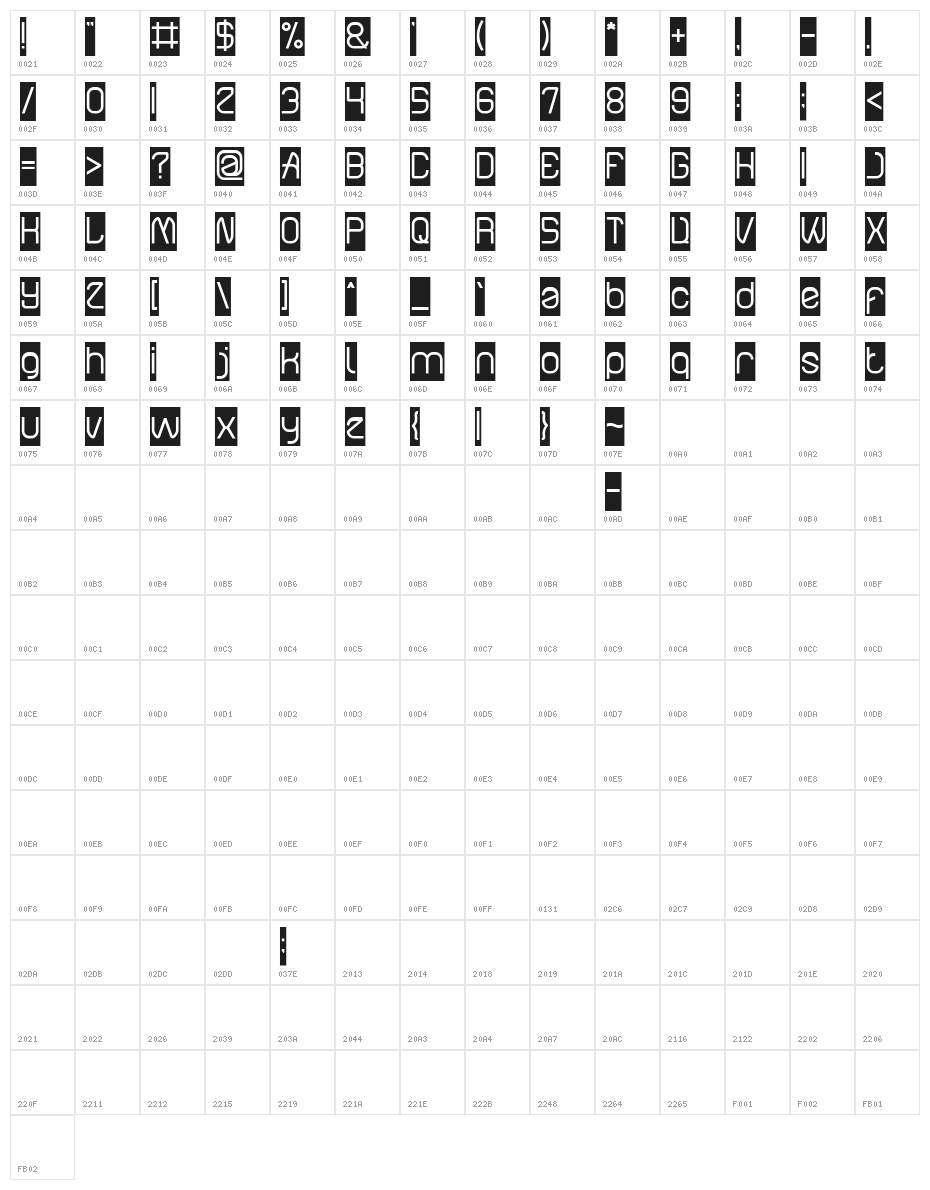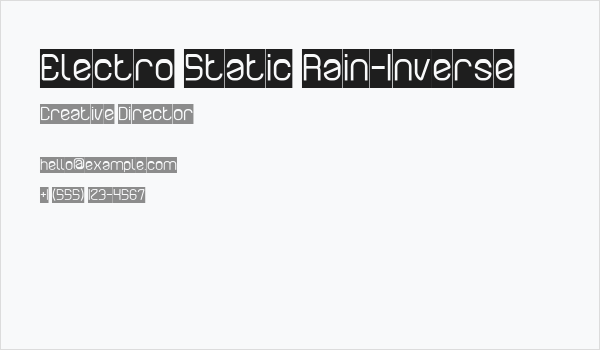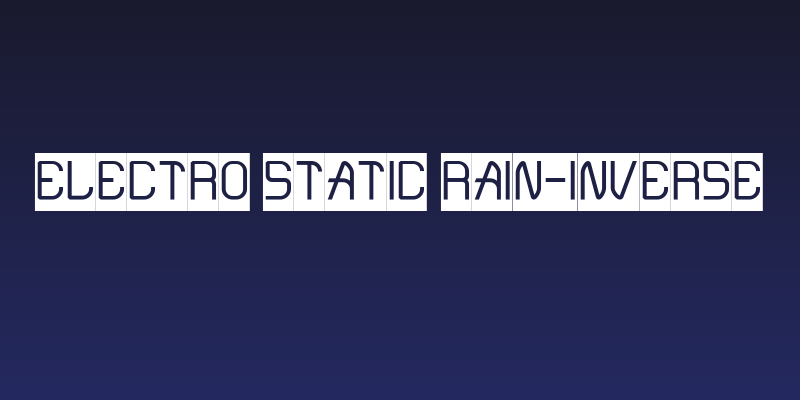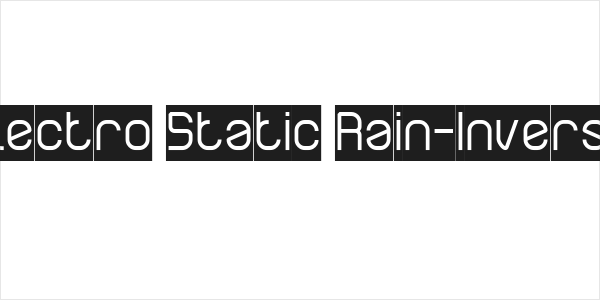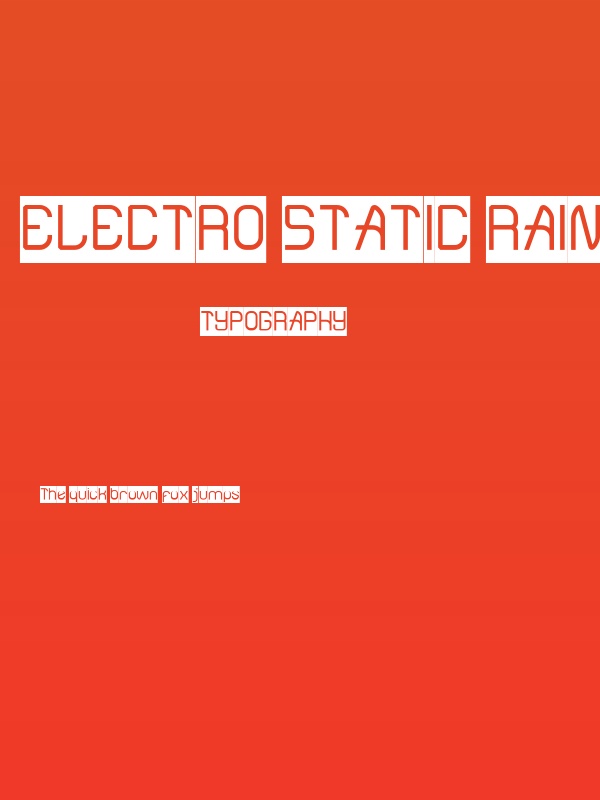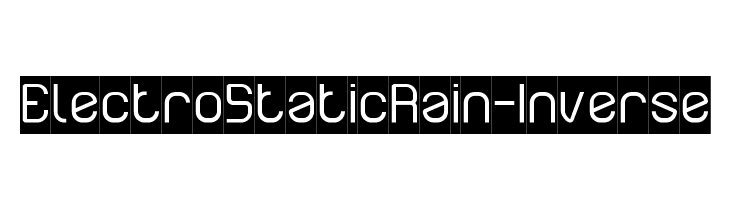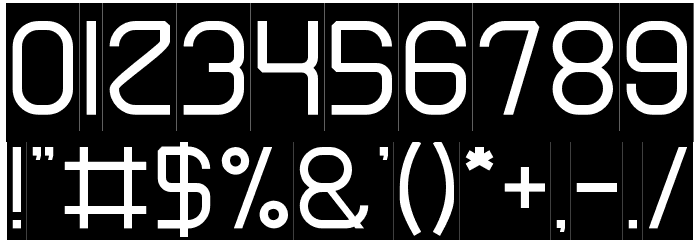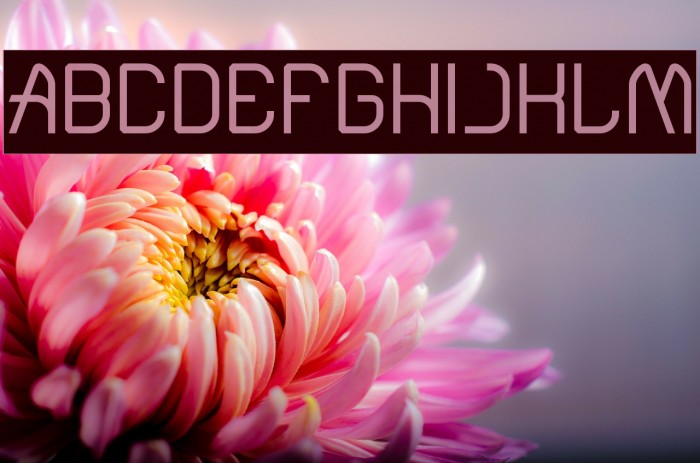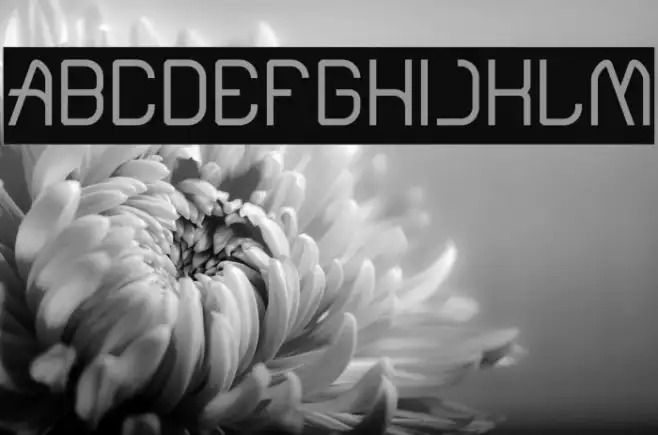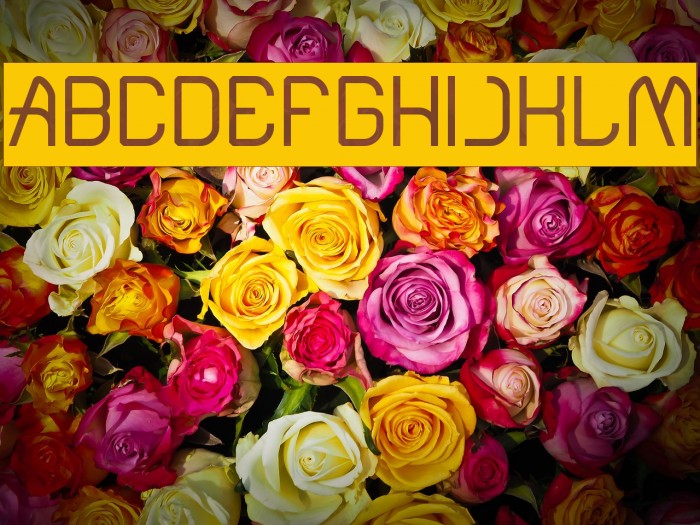
Electro Static Rain-Inverse Font
Electro Static Rain-Inverse Description
This font features a futuristic and geometric design with a distinctively modern aesthetic. The characters are composed of clean, straight lines and sharp angles, giving it a sleek and contemporary look. The uppercase letters exhibit a uniform height and width, while the lowercase letters maintain a consistent style that complements the uppercase. The numerals are bold and clear, making them easily readable. Special characters are designed with the same geometric precision, ensuring a cohesive appearance across all glyphs. The overall design is minimalistic yet striking, making it suitable for projects that require a modern and tech-inspired feel.
ELECTRO-STATIC-RAIN-INVERSE UPPERCASE
ELECTRO-STATIC-RAIN-INVERSE LOWERCASE
ELECTRO-STATIC-RAIN-INVERSE OTHER CHARS
| Proposed Projects | Ideal for tech branding, digital interfaces, modern posters, and sci-fi themed designs. |